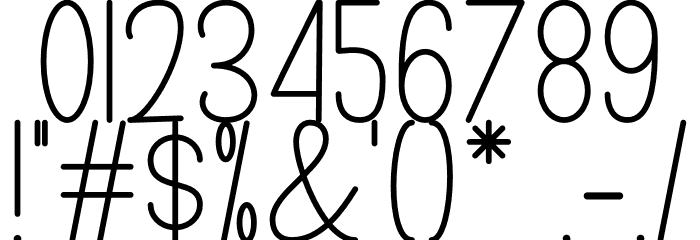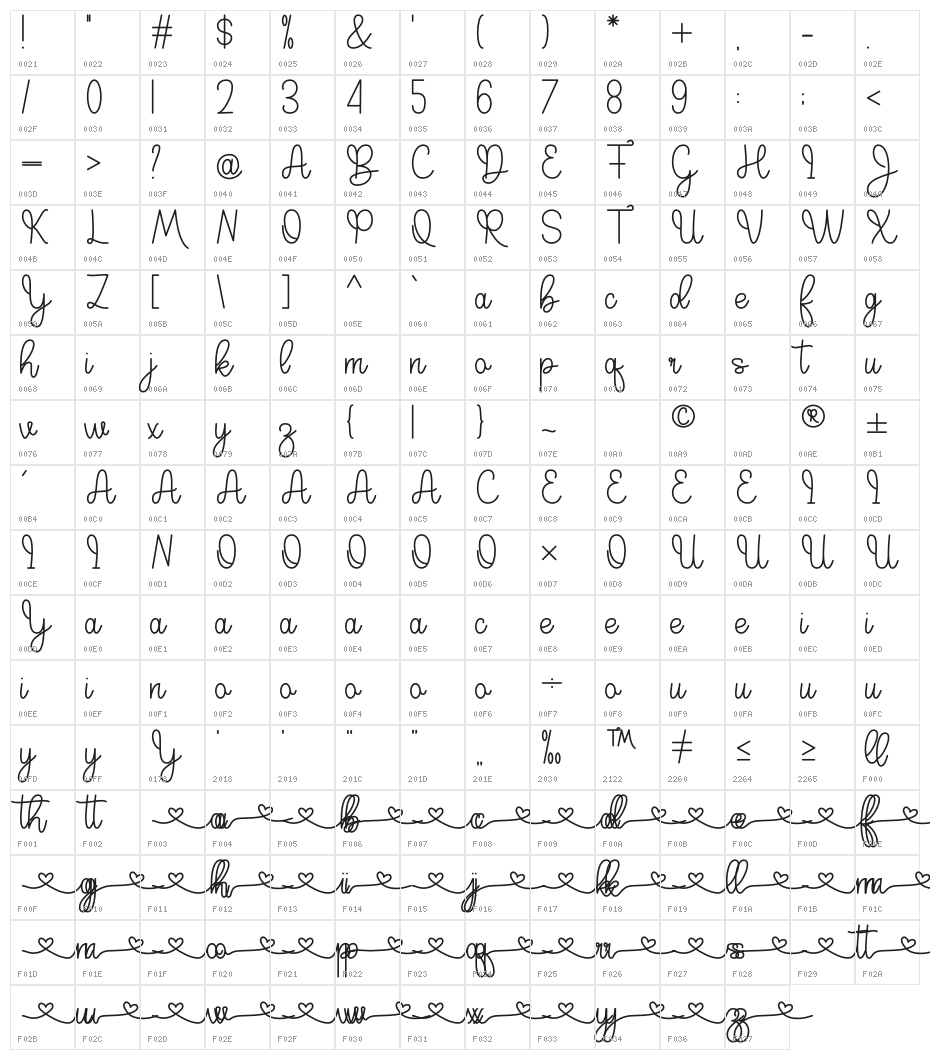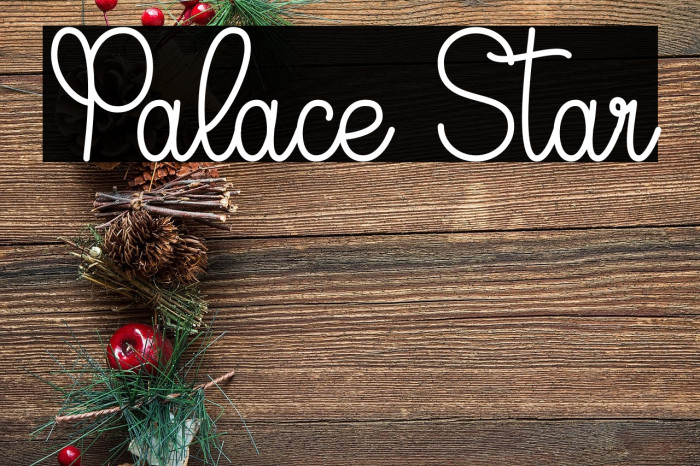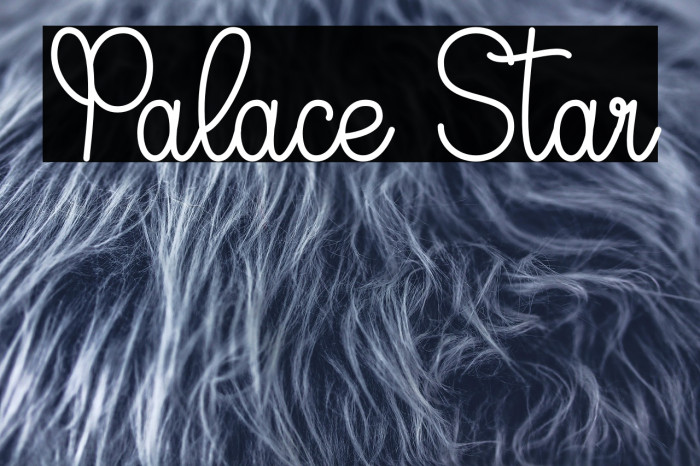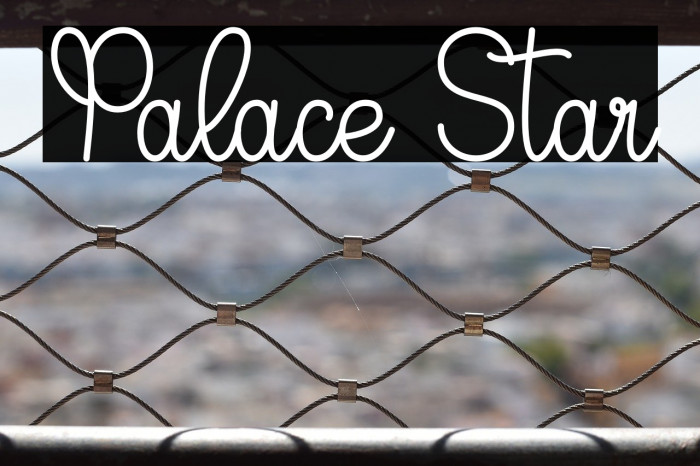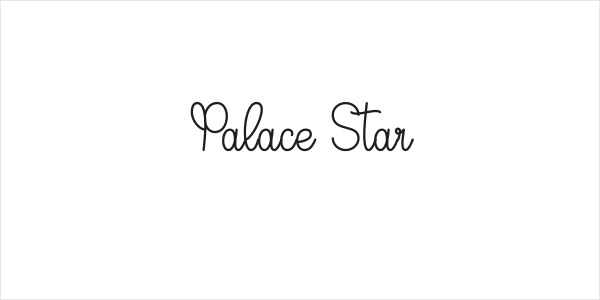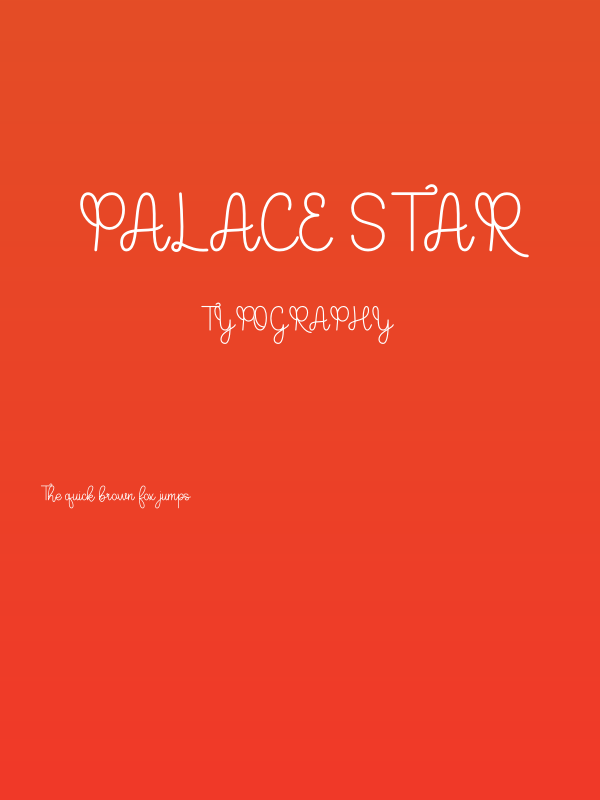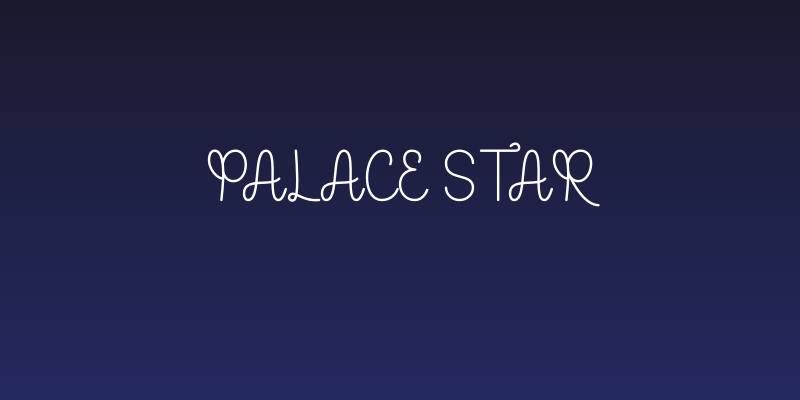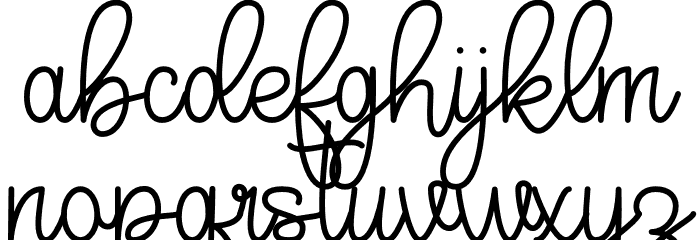
Palace Star Font
Palace Star Description
This font features a playful and whimsical script style with a handwritten feel. The uppercase letters are characterized by their looping, flowing lines, giving them a sense of movement and elegance. The lowercase letters maintain a consistent style, with smooth curves and a slightly informal appearance. Numbers are clear and legible, with a similar playful touch. Special characters are integrated seamlessly, maintaining the overall aesthetic. The font's design is both decorative and functional, making it suitable for a variety of creative projects.
| Proposed Projects | Ideal for greeting cards, invitations, personal branding, and creative projects that require a touch of elegance and playfulness. |